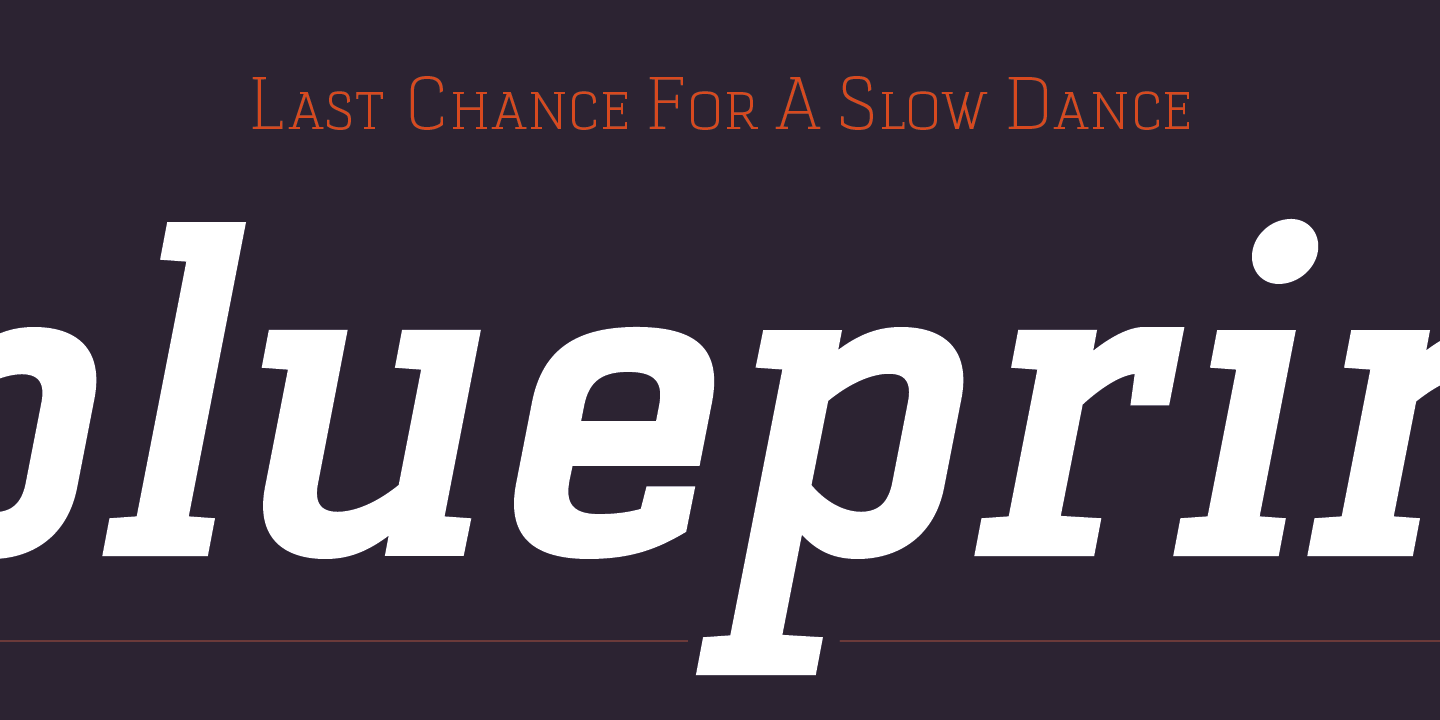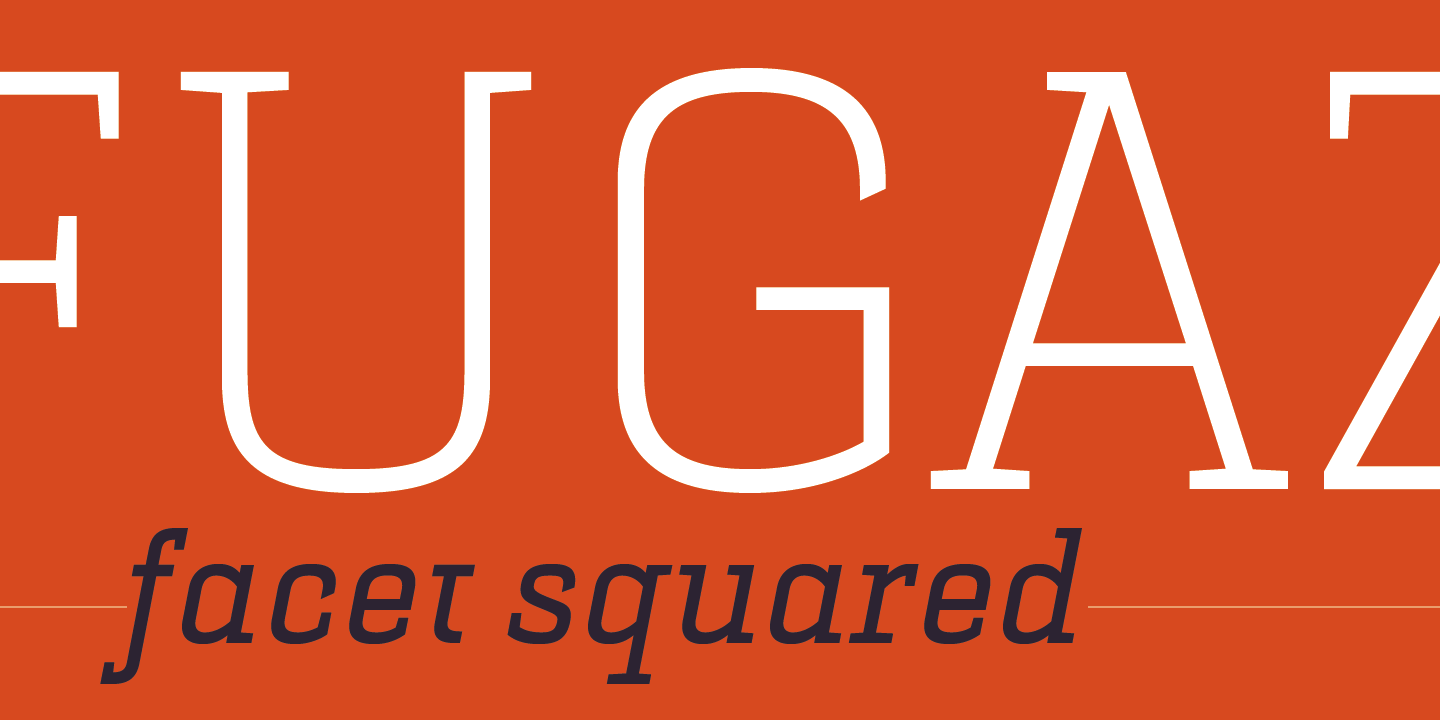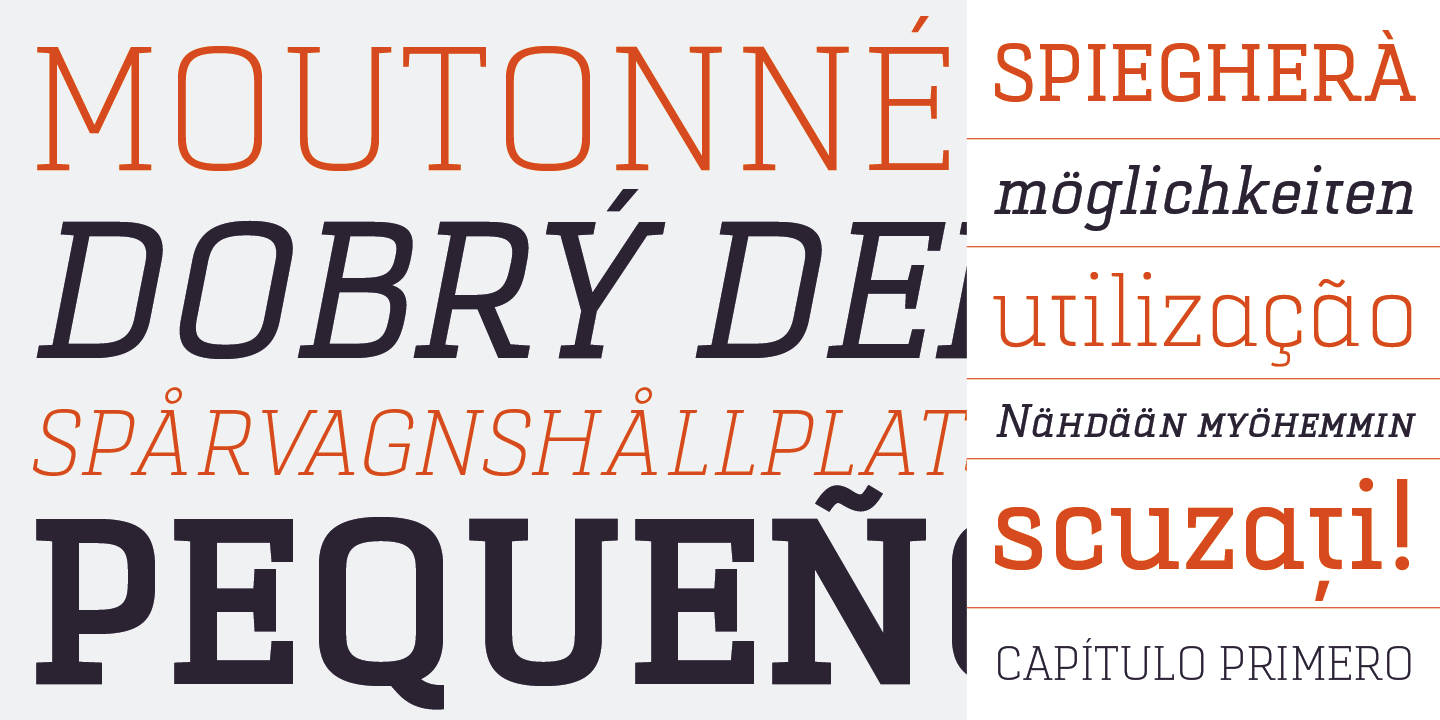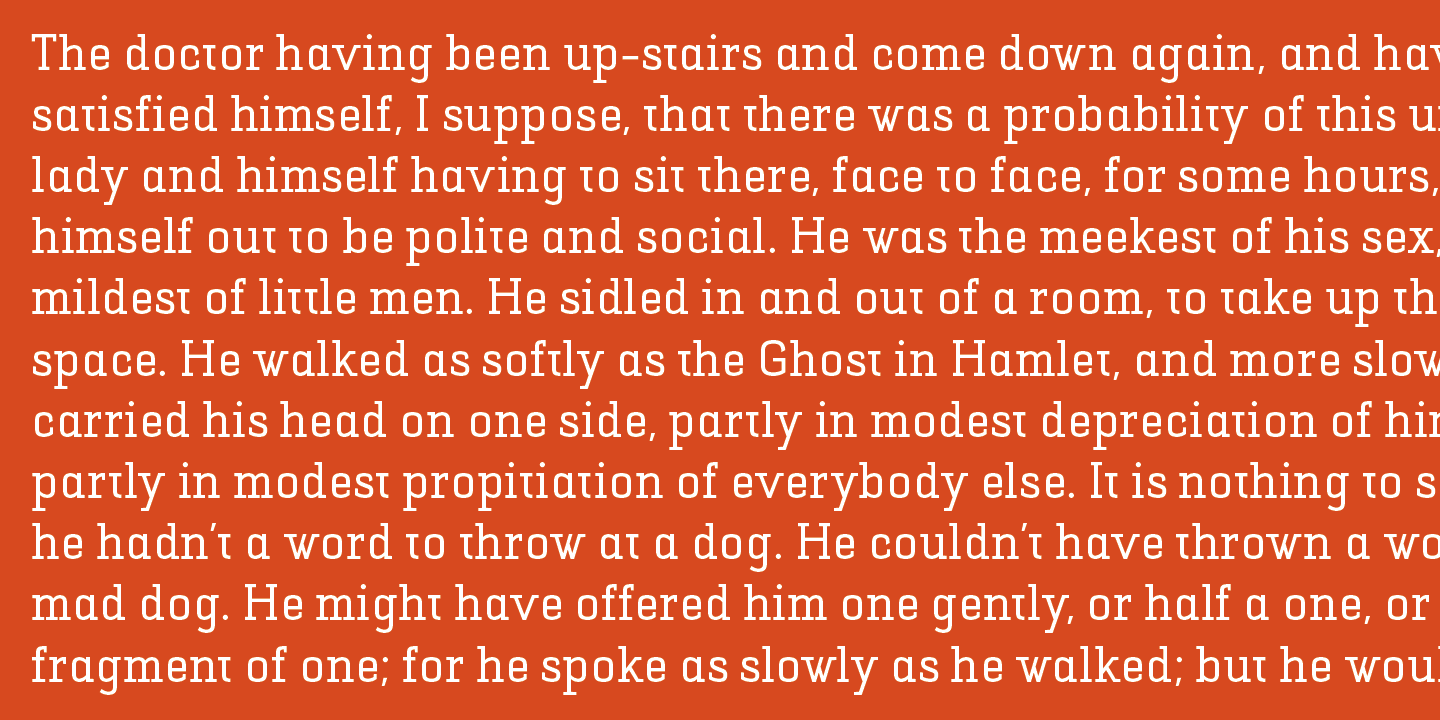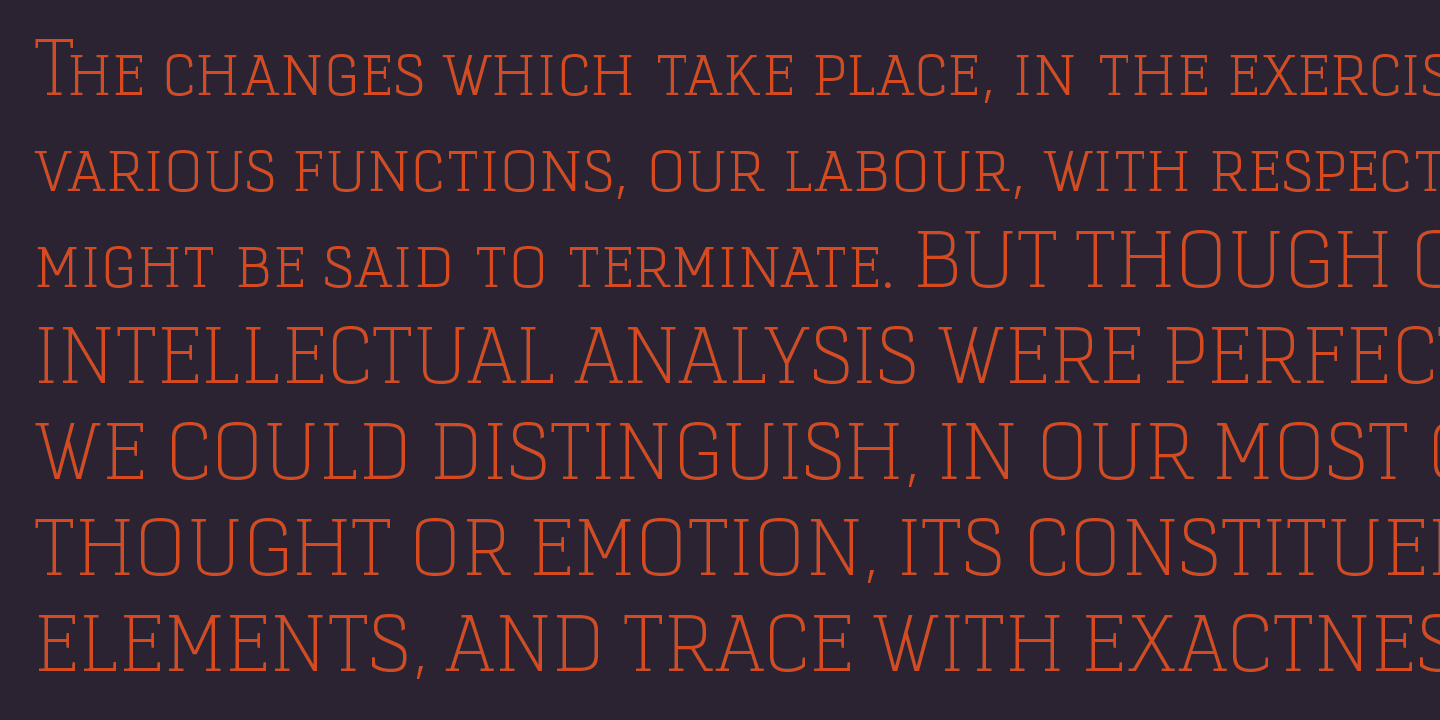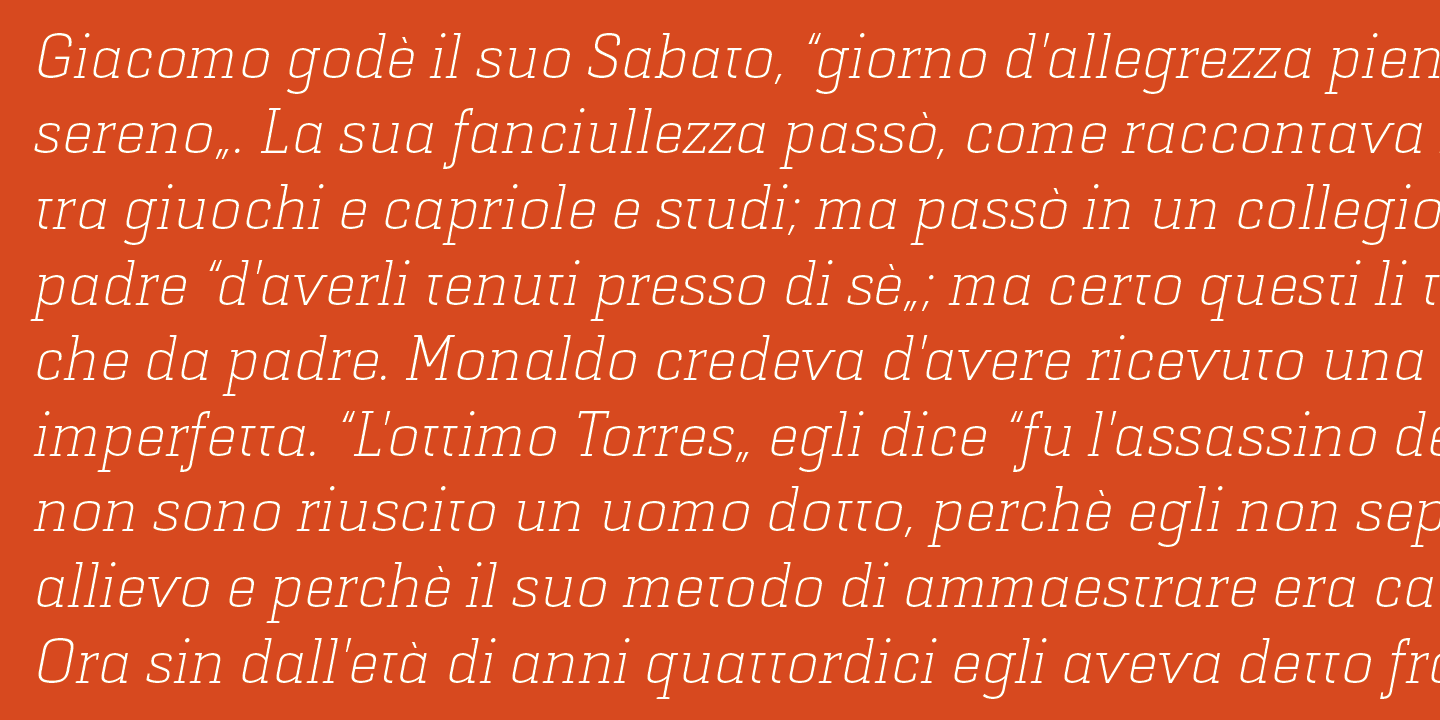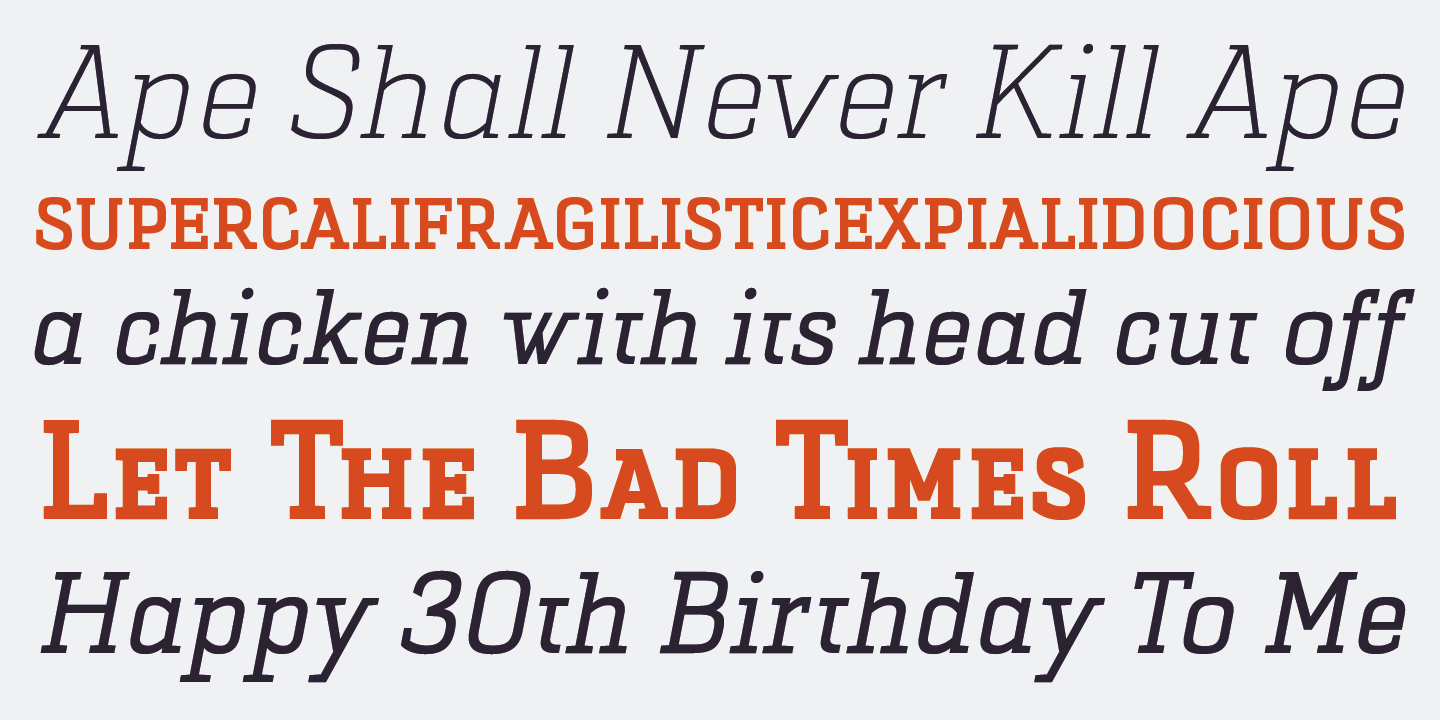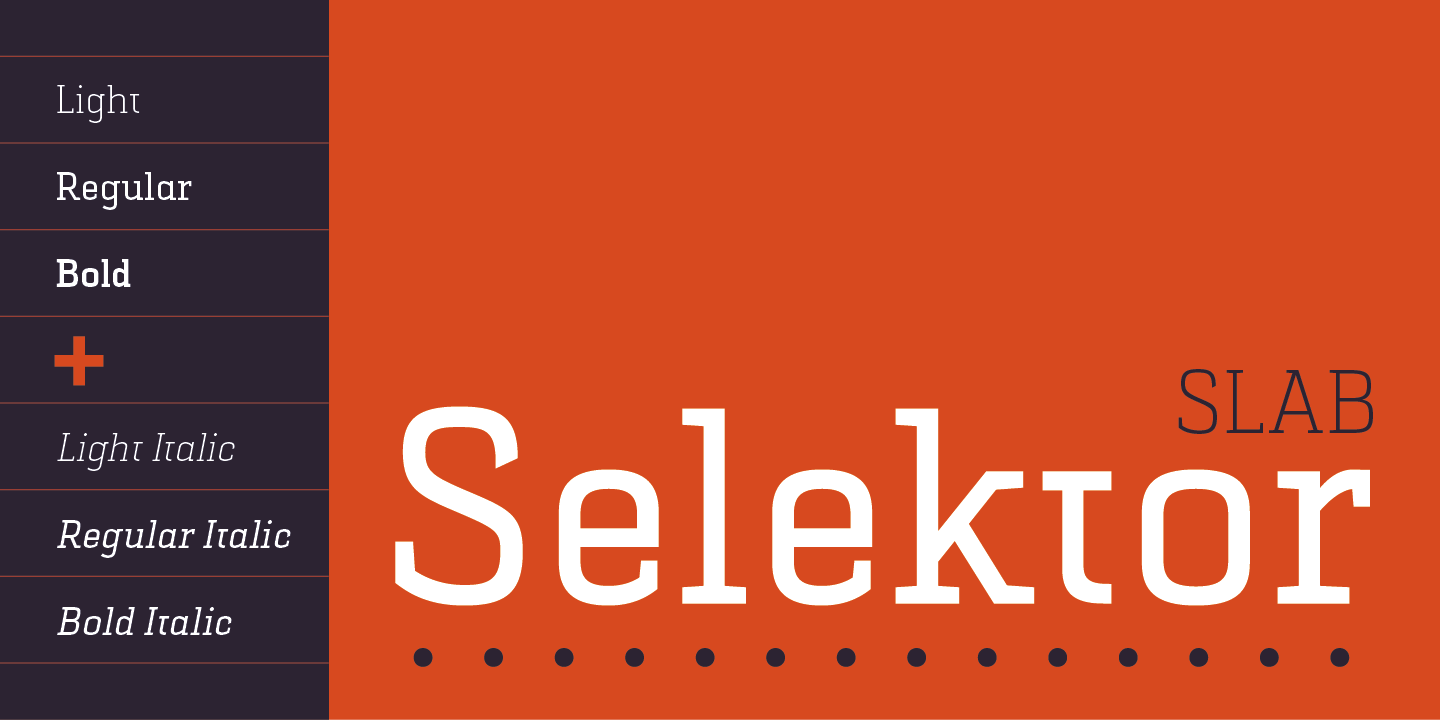
Selektor Slab is small font family created as logical extending of the Selektor font family. Inspired and after that designed with the charm of technical letters, it contains a few letters with specific endings that gives Selektor Slab peculiar impression. Global overview of Selektor Slab says it’s a neutral, corporate, stable, well balanced font family, but not cold and heartless to leave readers without remembrance on its characteristics. It is fully appliable in all kinds of publications, from long texts in paragraphs to titles and product names. Available in 3 weights - Light, Regular and Bold and matching Italics. All family members include Small Caps and Fractions as additional OpenType features.